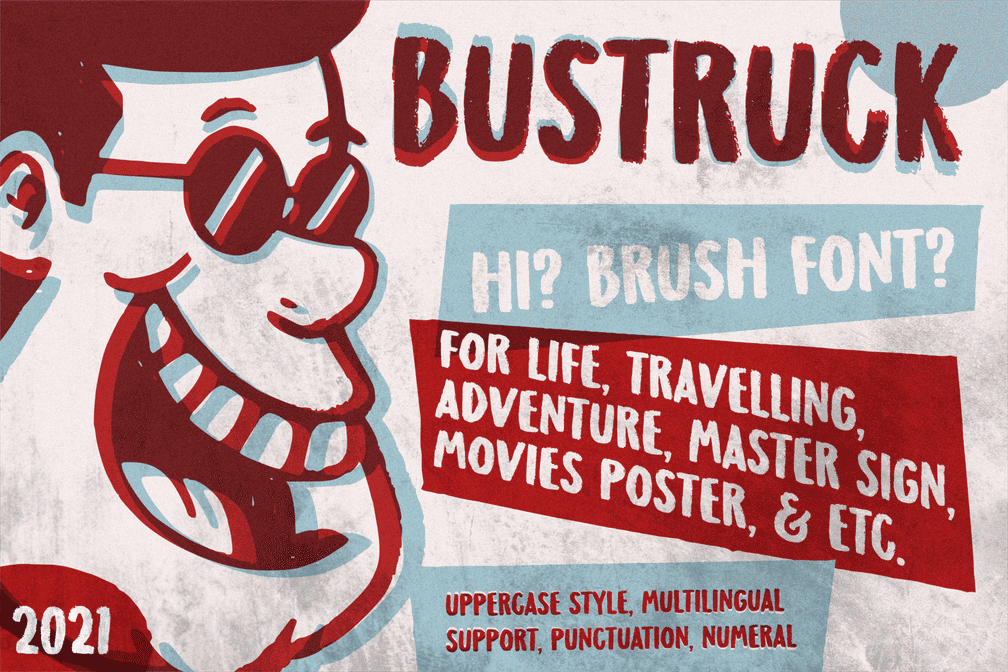
Bustruck Brush Font
A font created using ink and a painting brush cut randomly, so this font “Bustruck”, is suitable for logos, quotes, posters, packaging designs, label designs, movie titles, television series titles, billboard designs and more.
• All Uppercase Style
• Numeral
• Punctuation
• Multilingual Support